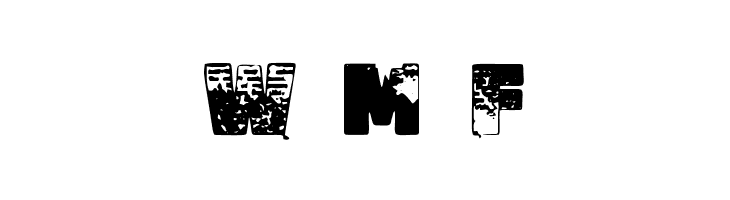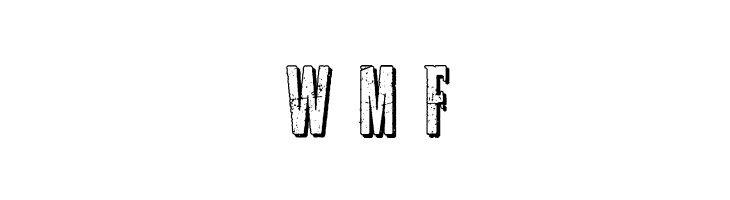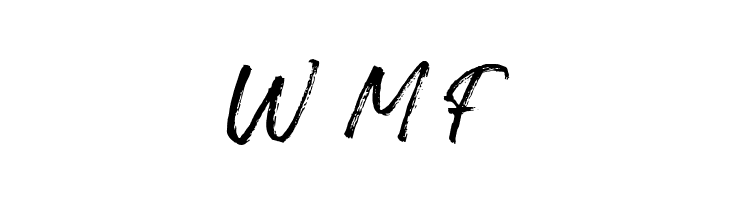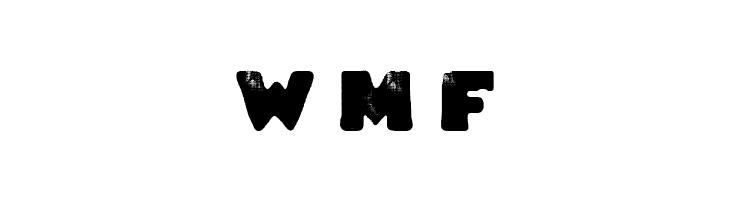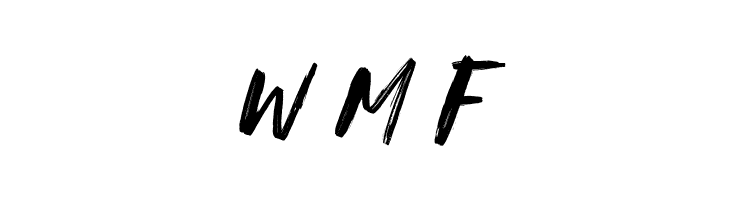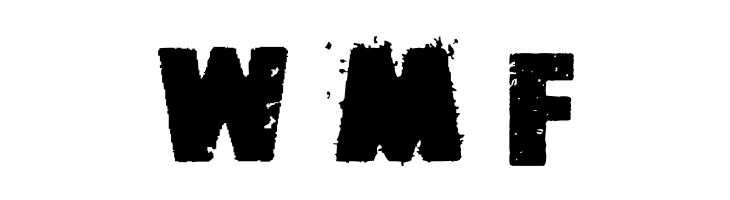
A bold, distressed industrial font with a rugged, grunge aesthetic.
A bold, distressed font with a grunge texture and strong, blocky characters.
A bold, distressed font with a grunge texture and vintage appeal.
A playful, hand-drawn sketch-style font with a textured, artistic look.
A bold, distressed font with a grunge texture and angular lines.
A bold, handwritten font with a casual, artistic style.
A bold, distressed grunge font with a rugged texture.
A decorative display font made entirely of diverse arrow designs.
A bold, distressed font with a grunge, urban aesthetic.
A bold, distressed font with a textured, vintage appearance.
A chaotic, ransom note-style font with mixed typefaces and sizes.
A distressed, vintage-style font with bold, textured uppercase letters.
A bold, dynamic brush script with expressive, textured strokes.
A casual, handwritten font with fluid, cursive strokes and playful elegance.
A dynamic brush-style font with bold, expressive strokes.
A bold, playful handwritten font with smooth, rounded edges.
A chaotic, ransom note-style font with mismatched characters.
A bold, distressed font with a rugged, vintage style.
A dynamic, brush-style font with an expressive, handwritten look.
A bold, playful font with a zigzag pattern inside each uppercase letter.
A bold, brush-style font with dynamic, textured strokes.
A bold, distressed font with a rugged, eroded texture.
A bold, expressive brush-style font with a dynamic, handwritten flair.
A bold, brush-style font with dynamic, hand-drawn strokes.
A bold, brush-style font with dynamic, hand-painted strokes.
A bold, playful, hand-drawn font with a whimsical and artistic feel.
A bold, brush-style font with dynamic, textured strokes.
A playful, handwritten font with a whimsical and dynamic style.
A diverse set of horror-inspired decorative display fonts with dramatic and eerie styles.
A dynamic, brush-style cursive font with artistic flair.